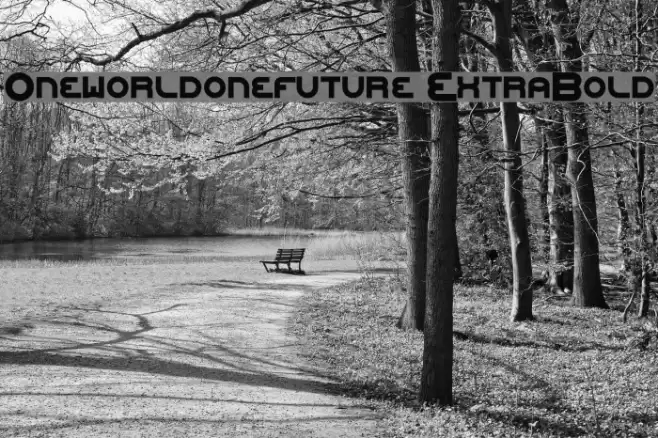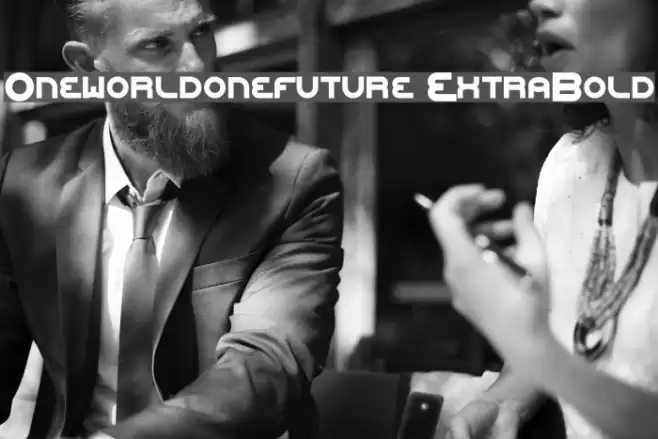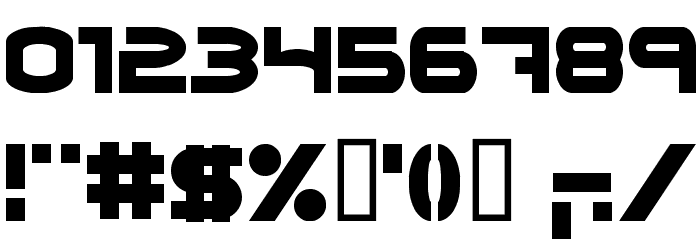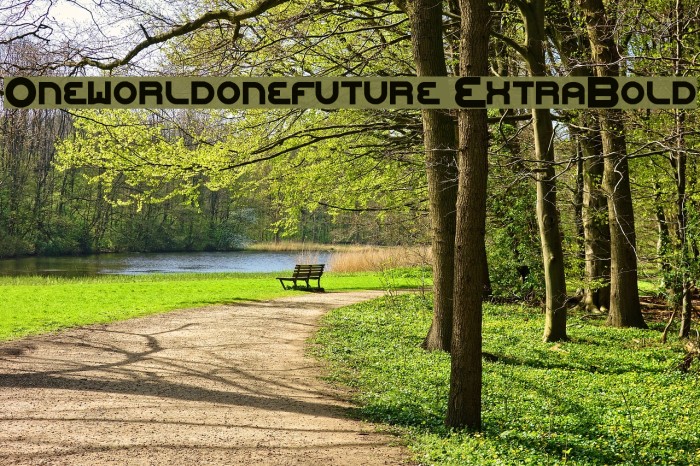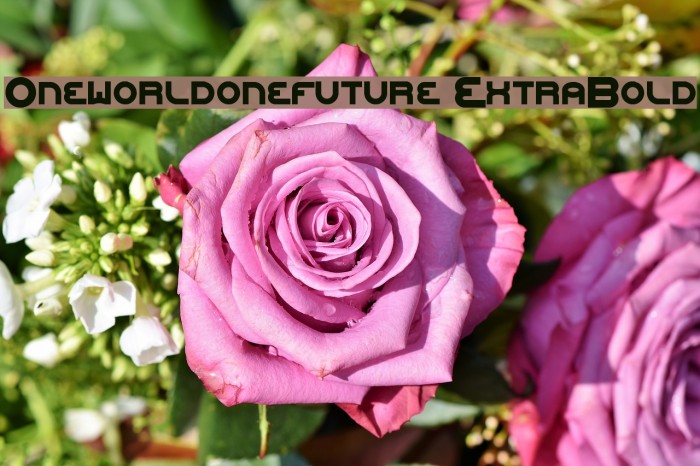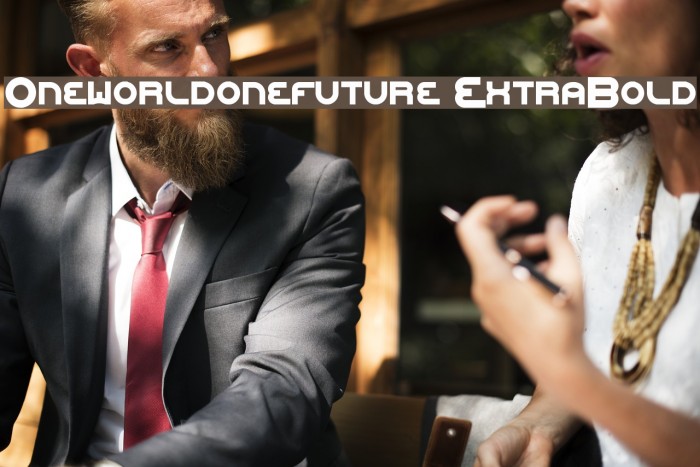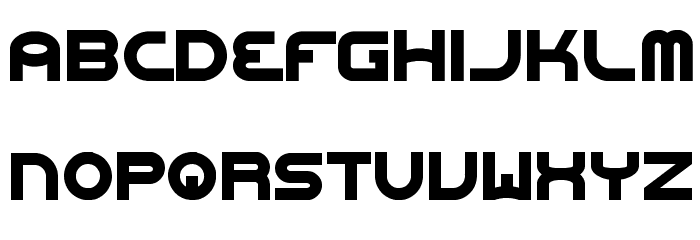
Oneworldonefuture ExtraBold Font
Oneworldonefuture ExtraBold Description
This font exhibits a bold and futuristic design, characterized by its geometric shapes and strong presence. The uppercase letters are uniform in height, with a distinct blocky appearance that conveys a sense of modernity and strength. The numbers and special characters maintain this geometric style, ensuring consistency across all glyphs. The font's design is clean and minimalistic, making it suitable for projects that require a contemporary and assertive look.
A bold, geometric font with a futuristic and modern style from Futuristic fonts.
- Proposed Projects: Ideal for technology branding, sci-fi themed designs, video game interfaces, and modern advertising campaigns.